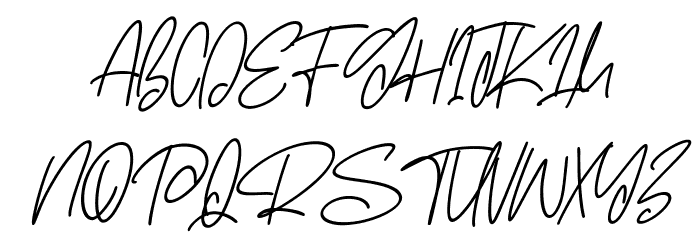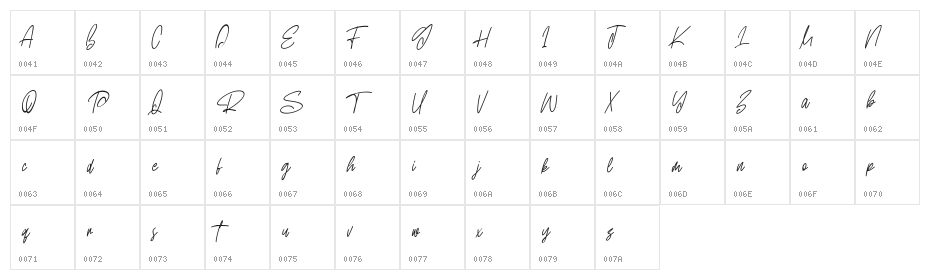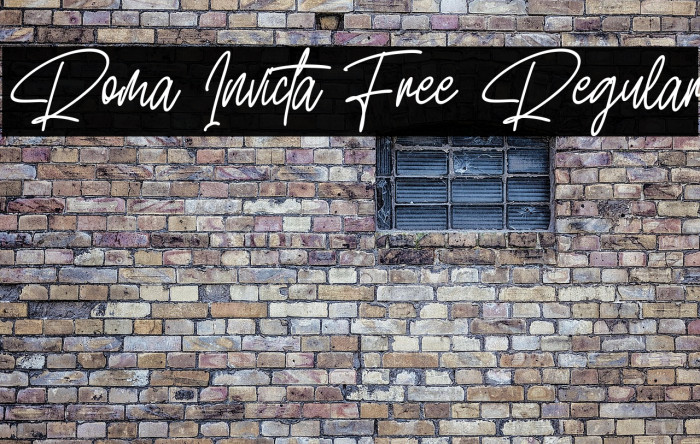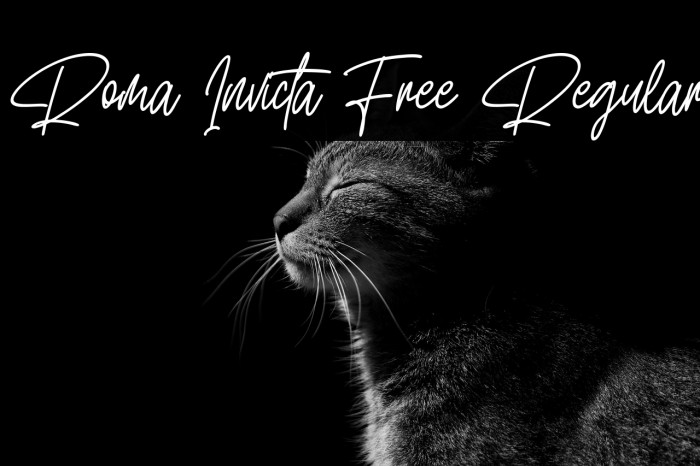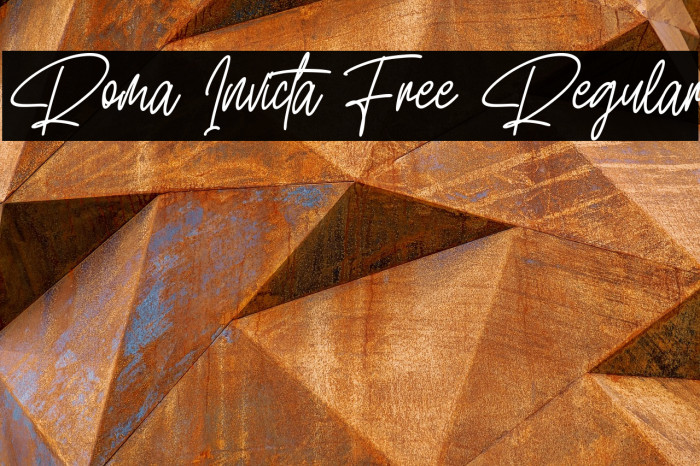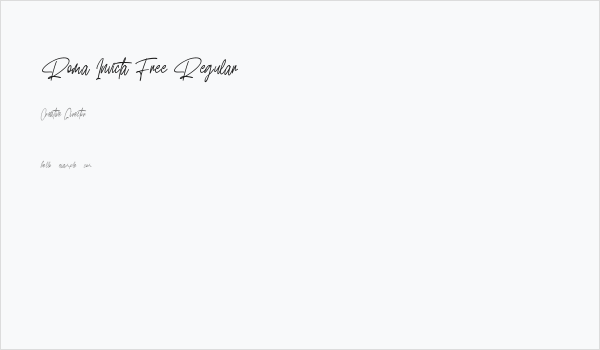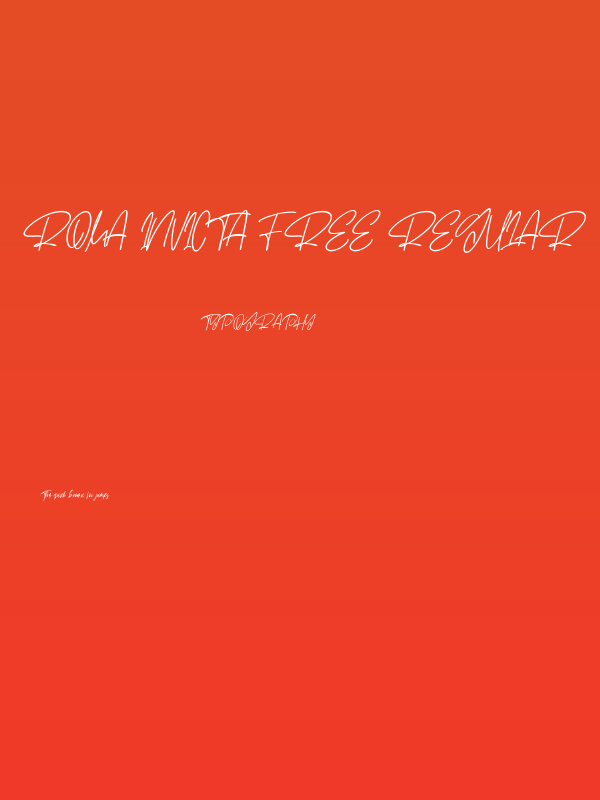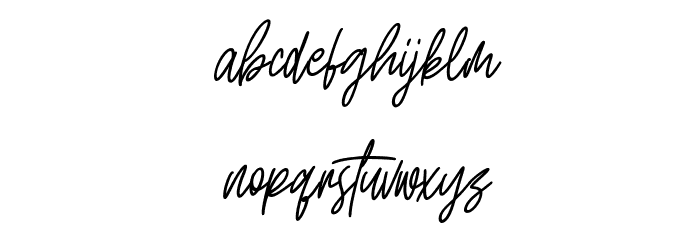
Roma Invicta Free Regular Font
Roma Invicta Free Regular Description
This font features an elegant and flowing script style, characterized by its smooth, cursive lines and artistic flair. The letters are connected in a fluid manner, giving it a handwritten appearance that is both sophisticated and approachable. The uppercase letters are bold and prominent, while the lowercase letters maintain a consistent flow, enhancing readability. The font's unique style is accentuated by its slightly slanted orientation, adding a dynamic and lively feel. It is well-suited for creative projects that require a personal touch, such as invitations, greeting cards, and branding materials. The overall aesthetic is modern yet timeless, making it versatile for various design applications.
| Proposed Projects | Ideal for invitations, greeting cards, branding, and creative projects requiring a personal touch. |